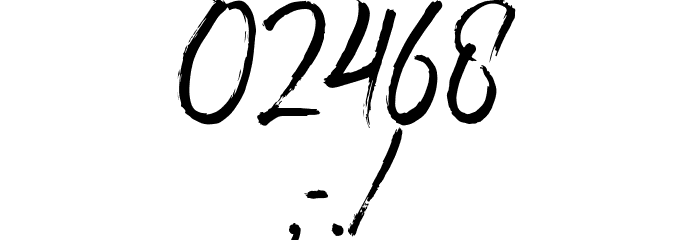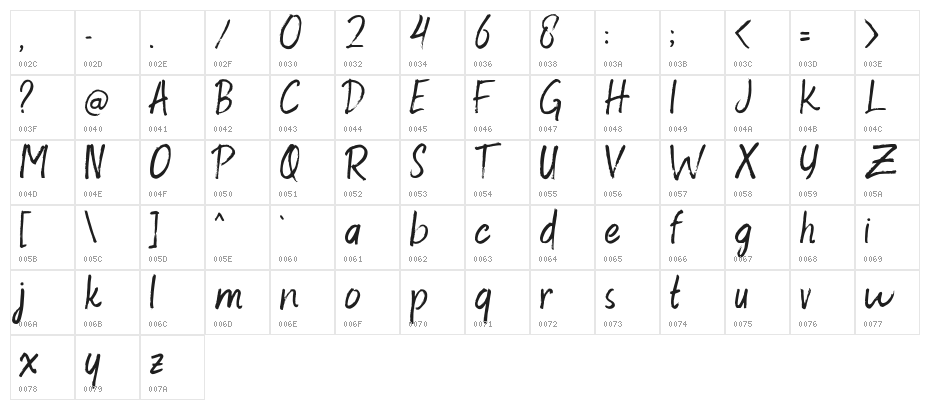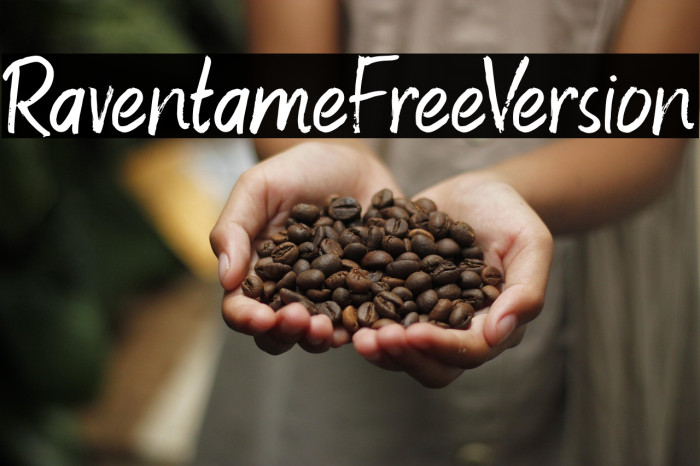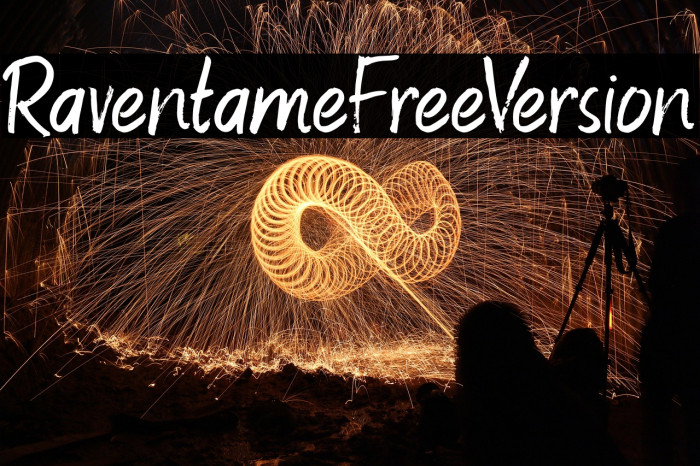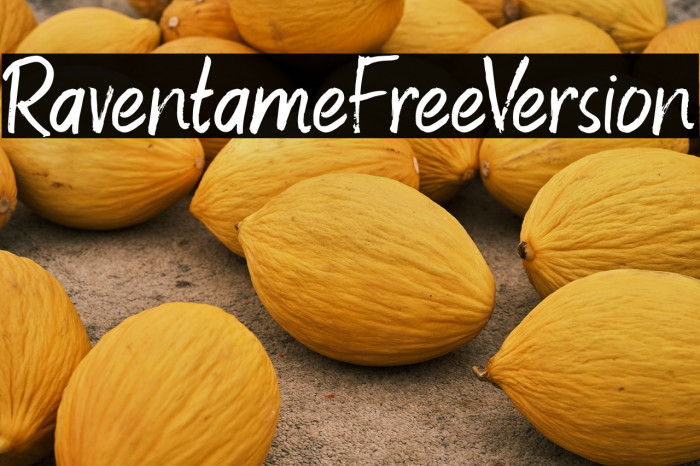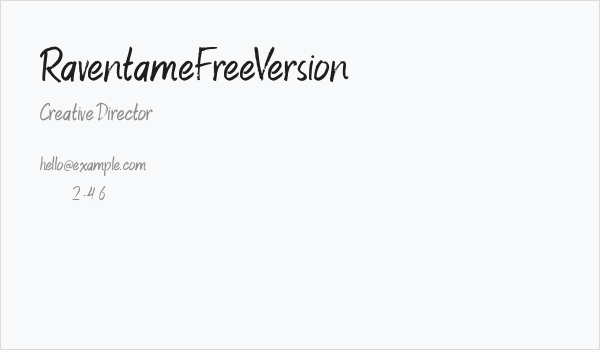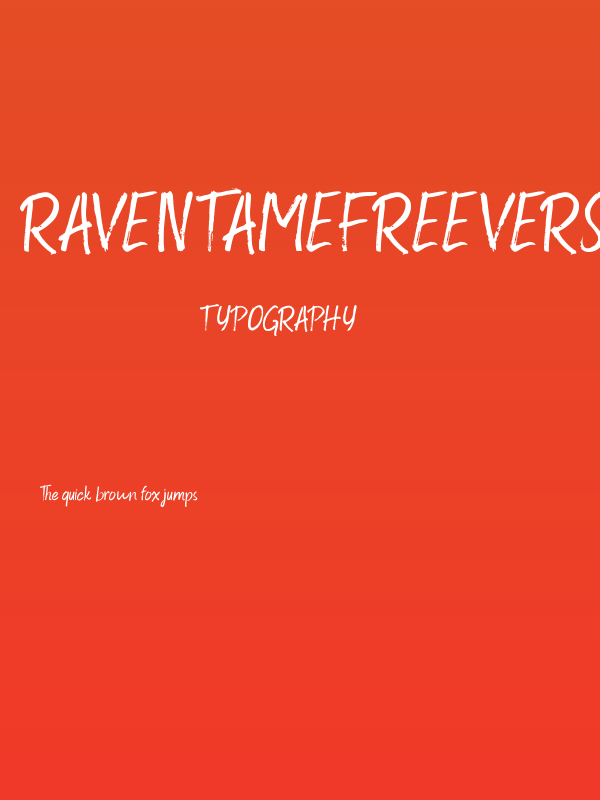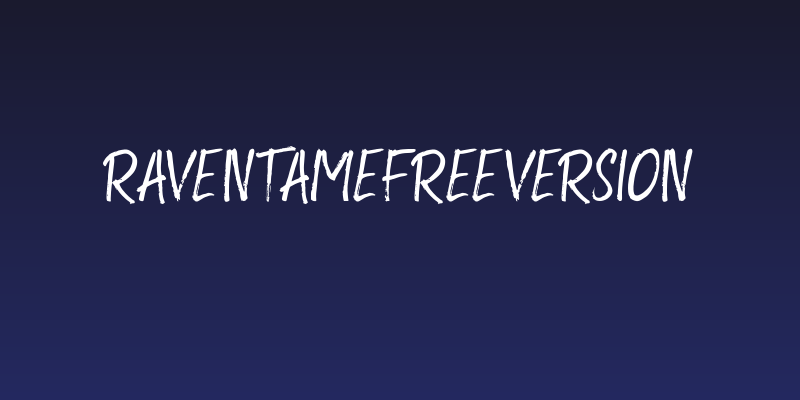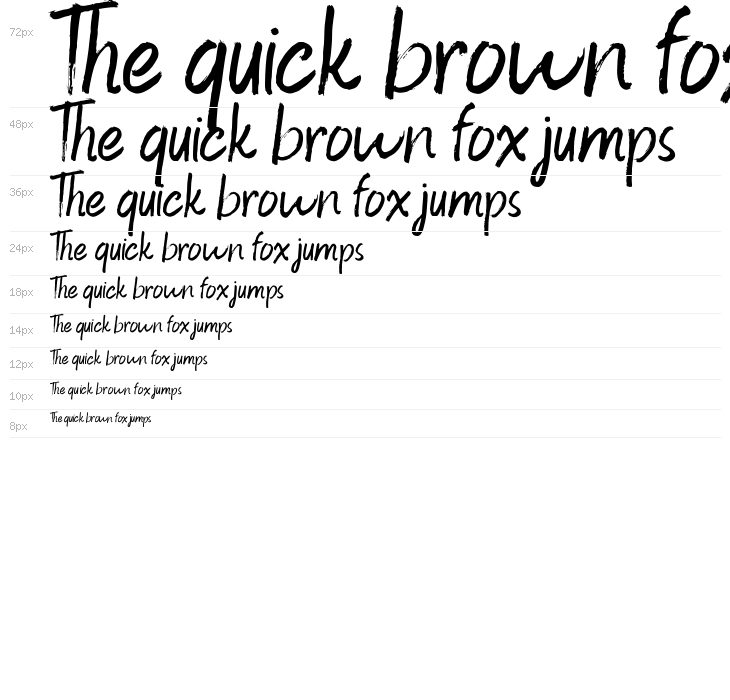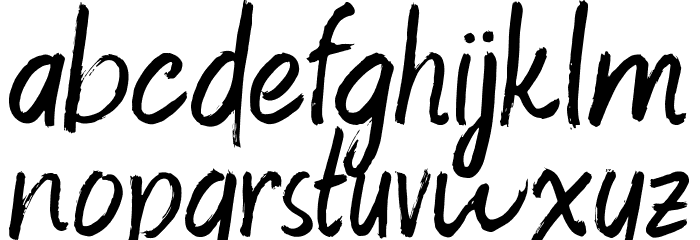
RaventameFreeVersion Font
RaventameFreeVersion Description
This font features a dynamic and expressive handwritten style, characterized by its bold, brush-like strokes. The letters have an organic feel, with varying thicknesses that give a sense of movement and energy. The uppercase letters are tall and slightly narrow, while the lowercase letters maintain a consistent flow with a slightly more rounded appearance. Numbers and special characters follow the same energetic style, making them stand out. The overall impression is artistic and informal, suitable for creative projects that require a personal touch.